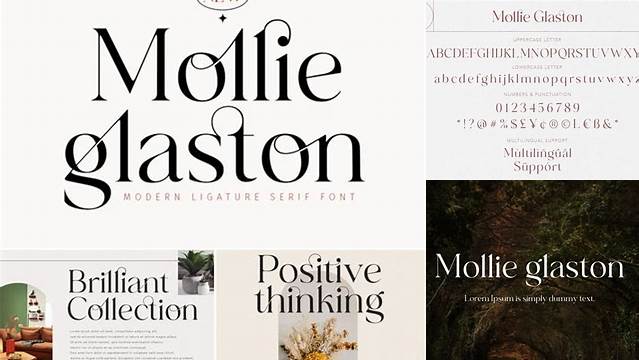
1. What is Mollie Glaston Font?
Alright, let's kick things off with the basics. What exactly is Mollie Glaston? Mollie Glaston is a beautifully crafted font that blends modern aesthetics with a touch of classic charm. It's designed to be versatile, making it suitable for a wide range of projects. Think logos, branding materials, website headers, social media graphics, and even print designs like posters and invitations. The beauty of Mollie Glaston lies in its clean lines and balanced letterforms, which ensure readability and visual appeal. When you're looking for Mollie Glaston, consider the impact you want to make. This font can be adapted to suit different design aesthetics, whether you're going for something minimalist or a bit more elaborate. Moreover, its availability as a free font makes it accessible to everyone, from students to professional designers. So next time you need a font that’s both stylish and functional, Mollie Glaston should definitely be on your radar. It's one of those fonts that can elevate your designs and give them a polished, professional look without costing you a dime. Keep exploring its potential and see how it can transform your creative projects!
2. The History and Designer Behind Mollie Glaston
Every great font has a story, right? While information about the specific designer and the exact history of Mollie Glaston might be a bit elusive (sometimes these things are shrouded in mystery!), it's important to appreciate the craftsmanship that goes into creating a font like this. Font design is an art form, requiring a keen eye for detail, a deep understanding of typography, and countless hours of tweaking and refining. So, even without all the specific details, we can still admire the skill and dedication that brought Mollie Glaston to life. What's cool about fonts like Mollie Glaston is that they often evolve over time. Designers might release updates or variations based on user feedback and new trends in the design world. This means that even if you're using the original version, there's always a chance that new and improved versions will become available. And let’s be real, the history behind the design is not always the most important part; what truly matters is that Mollie Glaston helps you to unlock your creative vision and execute with style. Keep experimenting with it, try it out in different contexts, and see how it brings your projects to life. Ultimately, the font's impact on your design speaks volumes, regardless of its backstory. Go forth and create!
3. Key Features of the Mollie Glaston Free Font
Okay, let’s get into the nitty-gritty. What makes Mollie Glaston stand out from the crowd? First off, it’s got a super clean and modern look. The letterforms are well-defined, making it easy to read whether you’re using it for headlines or body text. Plus, it often includes a variety of weights and styles – think regular, bold, italic, and maybe even a light version. This gives you a ton of flexibility when you're designing. Another cool feature is its character set. Mollie Glaston usually includes all the standard letters, numbers, and punctuation marks, but it might also have some special characters or glyphs that add a unique touch. These can be really useful for adding visual interest to your designs. And let’s not forget about kerning and letter spacing. A well-designed font like Mollie Glaston will have carefully adjusted kerning, which is the space between individual letters, to ensure that everything looks balanced and harmonious. This attention to detail is what separates a good font from a great one. So, when you're checking out Mollie Glaston, pay attention to these key features. They're what make it such a versatile and valuable tool for any designer. Trust me, once you start using it, you'll wonder how you ever lived without it!
4. Mollie Glaston Font Styles and Weights
One of the coolest things about Mollie Glaston is the variety it offers in terms of styles and weights. This isn’t just about having a regular and a bold version; you might find light, medium, semi-bold, and even extra-bold options. Each weight gives a different feel to your text. Light weights are great for a delicate, airy look, while bolder weights can add emphasis and make your text pop. And then there are the stylistic variations. Mollie Glaston might come with italic versions, which can add a touch of elegance and sophistication to your designs. Some versions even include condensed or expanded styles, which can be super useful when you need to fit text into a tight space or want to create a more dramatic effect. When you're choosing the right style and weight, think about the overall tone you're trying to achieve. Are you going for something modern and minimalist? Or something more classic and traditional? The style and weight you choose can have a big impact on the way your message is perceived. Also, experiment with different combinations. Try using a light weight for your body text and a bold weight for your headings. This can create a nice visual hierarchy and make your designs more engaging. So, don't be afraid to play around with the different styles and weights that Mollie Glaston offers. You might be surprised at the creative possibilities you discover!